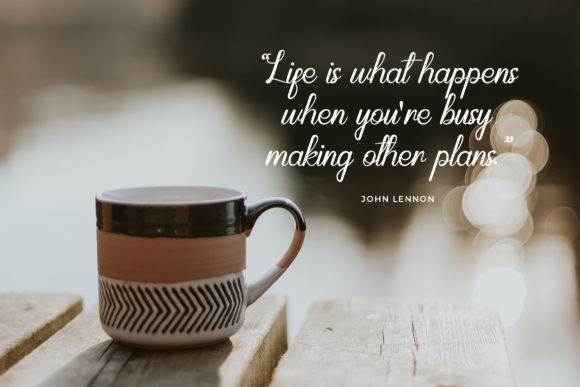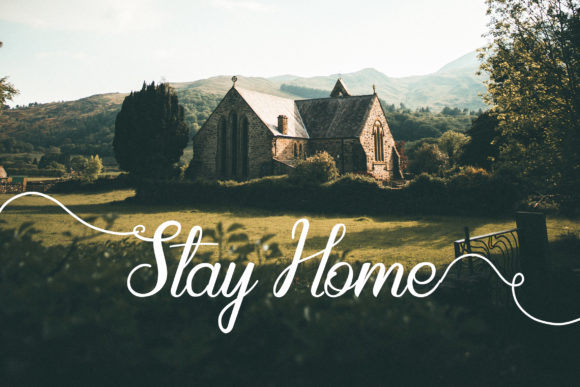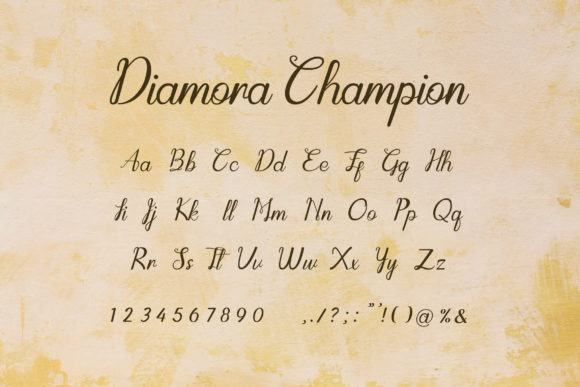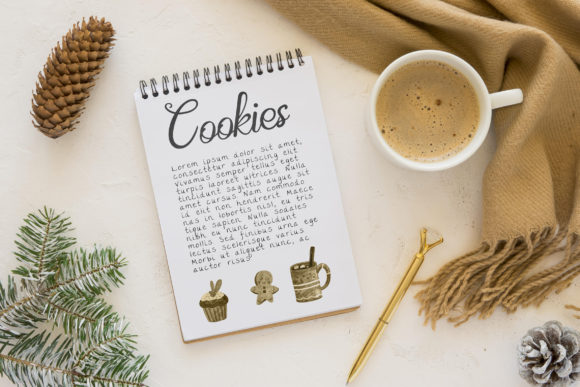
The Designer’s Delight: A Deep Dive into Diamora Champion Font
I’ll never forget the moment I stumbled upon Diamora Champion Font while working on a project that required a touch of elegance and sophistication. I had been searching for the perfect font for hours, trying out different styles and weights, but nothing seemed quite right. That was until I saw Diamora Champion – its delicate, handwritten curves and perfectly rounded letters captured my heart instantly. In this article, I’ll share my love for this beautiful font, its features, and how to make the most of it in your designs.
An Honest Review of Diamora Champion Font
- ✨ Delicate and elegant handwritten style that adds a touch of sophistication to any design
- ✅ Well-rounded letters that make it easy to read and understand
- 💫 Incredibly versatile and can be used for a wide range of design projects, from branding to wedding invitations
- 🎨 Perfect for creating beautiful, eye-catching headings and titles
While Diamora Champion Font is an amazing font, there are a few things to keep in mind:
- ⚠️ It may not be the best choice for body text, as it’s a bit too ornate and might be difficult to read in large blocks
- 🤔 Some users might find the font a bit too delicate, and it may not work well on smaller sizes or low-resolution screens
- Experiment with different font sizes, colors, and styles to make the most of Diamora Champion’s elegant curves
- Take advantage of OpenType features, glyphs, and stylistic alternates to add more creativity to your designs
The Backstory of Diamora Champion Font
Diamora Champion Font was designed with the intention of creating a beautiful, elegant handwritten font that’s perfect for creative projects. The designer aimed to create a font that’s both versatile and eye-catching, with a unique personality that sets it apart from other fonts. While the real story behind the font’s creation might be unknown, it’s clear that Diamora Champion Font has been crafted with love and care, making it a true gem in the world of typography.
Q: What type of designs is Diamora Champion Font best suited for?
A: Diamora Champion Font is perfect for designs that require a touch of elegance and sophistication, such as branding, wedding invitations, posters, and social media graphics.
Q: Is Diamora Champion Font a sans-serif font?
A: No, Diamora Champion Font is a handwritten script font with a distinctive, cursive feel.